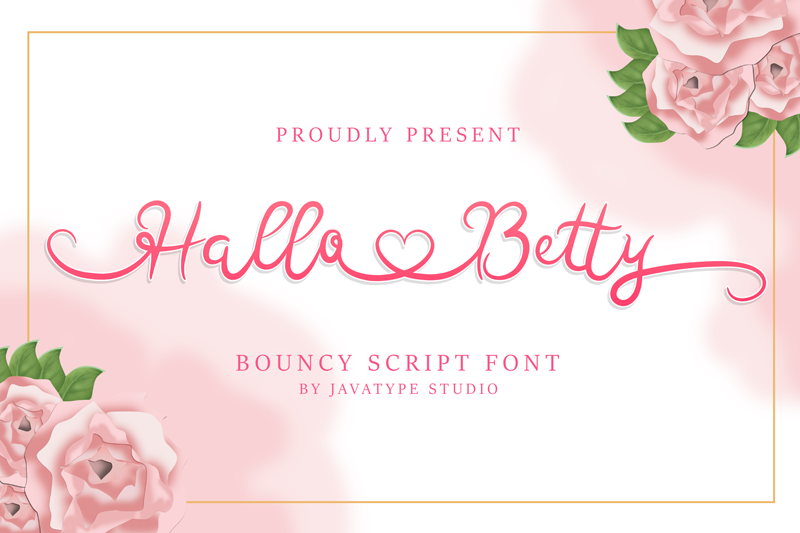
Font name: | Hallo Betty |
Author: | Javatype Studio |
Hallo Betty is a modern, handwritten, modern calligraphy font. The shape is modern and unique and the writing style is very natural. NOTE: This demo font is for PERSONAL USE ONLY! But any donation are very appreciated Paypal account for donation: http://paypal.me/tyoyulianto link to purchase full version and commercial license https://fontbundles.net/javatype-studio/1237144-hallo-battik please visit and follow my portfolio update: 1. dribbble https://dribbble.com/javatypestd 2.Behance https://www.behance.net/javatypestd 3.Pinterest https://id.pinterest.com/javatypestd/pins/ 4. Instagram https://www.instagram.com/javatype.studio/ 5. Facebook https://web.facebook.com/javatype.std/ Thank You Javatype Studio |